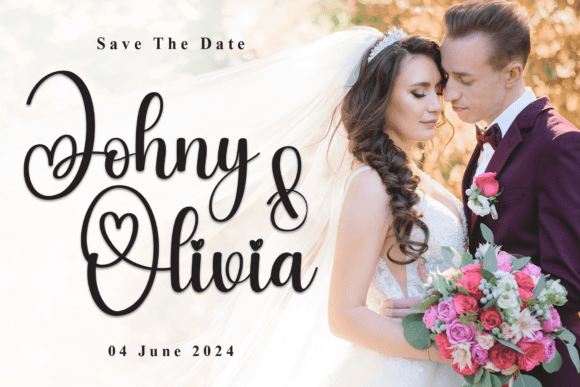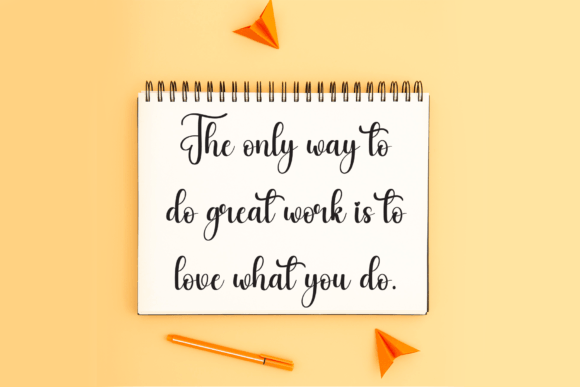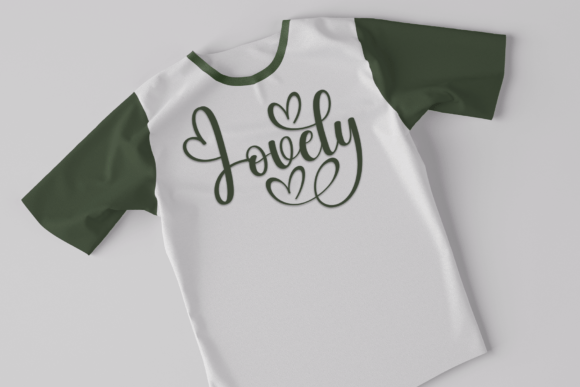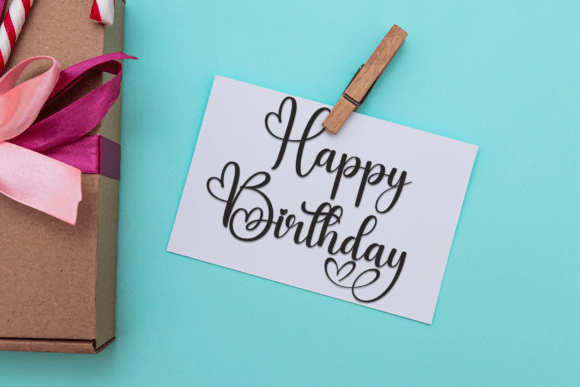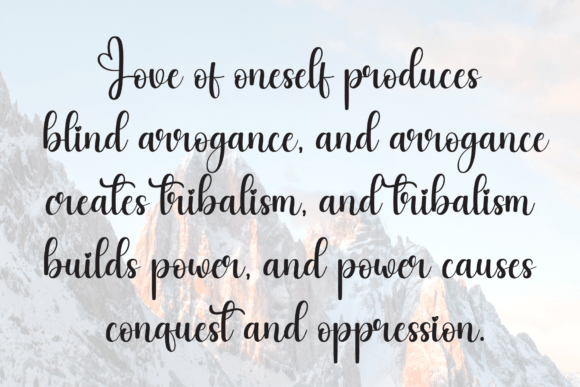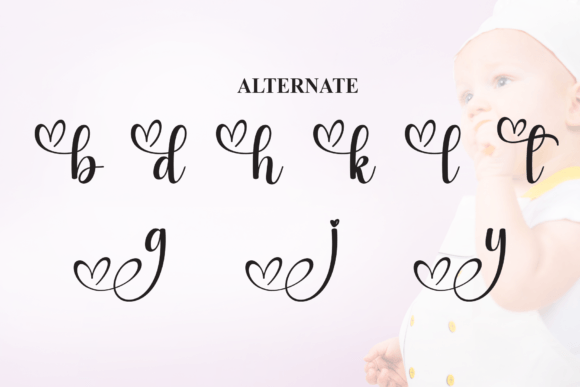
The Cutebaby Font: A Sweet and Friendly Companion for Your Design Journey
I’ll never forget the moment I stumbled upon the Cutebaby font. I was working on a project for a client’s children’s book, and I was struggling to find the perfect font to match the story’s playful and whimsical tone. The client wanted something that would appeal to kids and parents alike, but I was coming up blank. That’s when I discovered Cutebaby, and it was love at first sight! 💕
The Cutebaby font is a sweet and friendly handwritten font that has become an essential part of my design toolkit. Its natural and unique style makes it incredibly fitting for a wide range of designs, from kids’ books and educational materials to branding and packaging. The only limit is your imagination!
- ✅ Unique and playful handwritten style that’s perfect for kids’ projects and branding
- ✅ Wide range of applications, from digital to print
- ✅ Easy to read and understand, even for younger audiences
- ✅ Supports multiple languages and OpenType features
- ⚠️ Some characters may appear a bit cramped or inconsistent in certain sizes or resolutions
- ⚠️ Limited availability of bold or heavy weights, which may not be suitable for all designs
The Designer’s Inspiration: A Brief Backstory
The Cutebaby font was designed with love and care by a talented type designer who wanted to create a font that would bring joy and playfulness to design projects. The font’s unique style and charm are inspired by the designer’s own childhood memories and experiences. With Cutebaby, you can add a touch of whimsy and personality to your designs and make them truly special.
Q: What is the Cutebaby font best suited for?
A: The Cutebaby font is perfect for kids’ projects, educational materials, branding, and packaging. Its playful and whimsical style makes it ideal for designs that require a touch of personality and charm.
Q: Is Cutebaby a versatile font?
A: Yes, Cutebaby is a versatile font that can be used in a wide range of designs, from digital to print. Its unique style and charm make it suitable for various applications, from kids’ books to branding and packaging.
Q: Can I use Cutebaby with other fonts?
A: Yes, you can use Cutebaby with other fonts to create a unique and interesting design. Experiment with different font combinations to find the perfect pairing for your project.